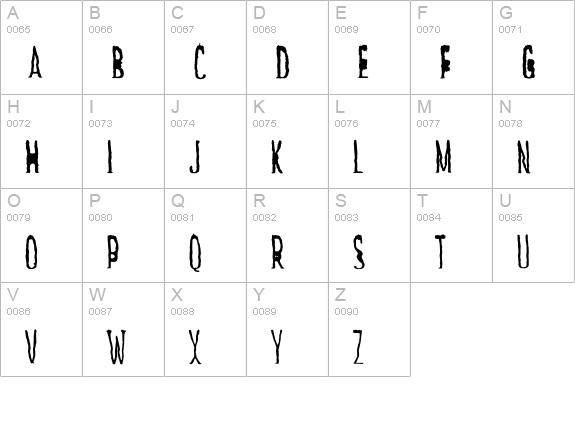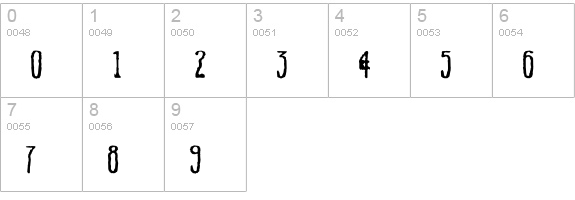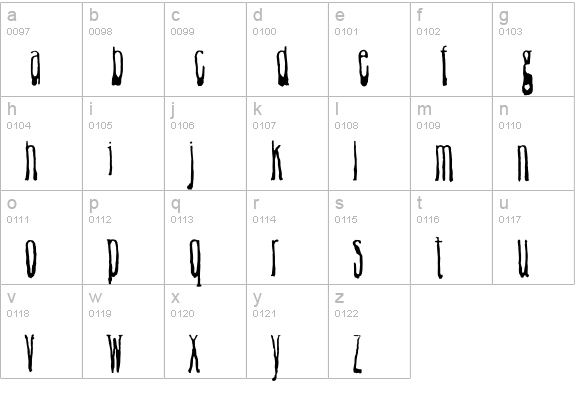
IndecisionStretched Font Details
Introducing IndecisionStretched, a mesmerizing and versatile font that embodies the essence of uncertainty and deliberation. With its elongated and stretched letterforms, this font effortlessly captures the essence of a wavering mind, adding a touch of intrigue and mystery to any project. IndecisionStretched is a font that effortlessly blends elegance with a hint of hesitation, making it a perfect choice for design projects that need to convey a sense of intrigue and contemplation. Whether you're working on a logo, website, or print design, this font will surely captivate your audience and leave a lasting impression. The unique feature of IndecisionStretched lies in its ability to convey a sense of ambiguity and open-endedness. The elongated letterforms create a visual tension, symbolizing the constant struggle between different choices and possibilities. This font invites the viewer to question and explore, giving your design an extra layer of depth and complexity. But the best part? IndecisionStretched is free! That's right, you can download this incredible font at no cost from FontsMarket.com. We believe that great design should be accessible to all, and that's why we are thrilled to offer this font for free. So go ahead, download IndecisionStretched and let your creativity soar as you explore the boundless possibilities it offers. In conclusion, IndecisionStretched is a font that effortlessly captures the essence of uncertainty and contemplation. Its elongated and stretched letterforms add a touch of intrigue and mystery to any design project, making it a perfect choice for those seeking to convey a sense of ambiguity and open-endedness. And the best part? It's free! Download IndecisionStretched now at FontsMarket.com and let your imagination run wild.